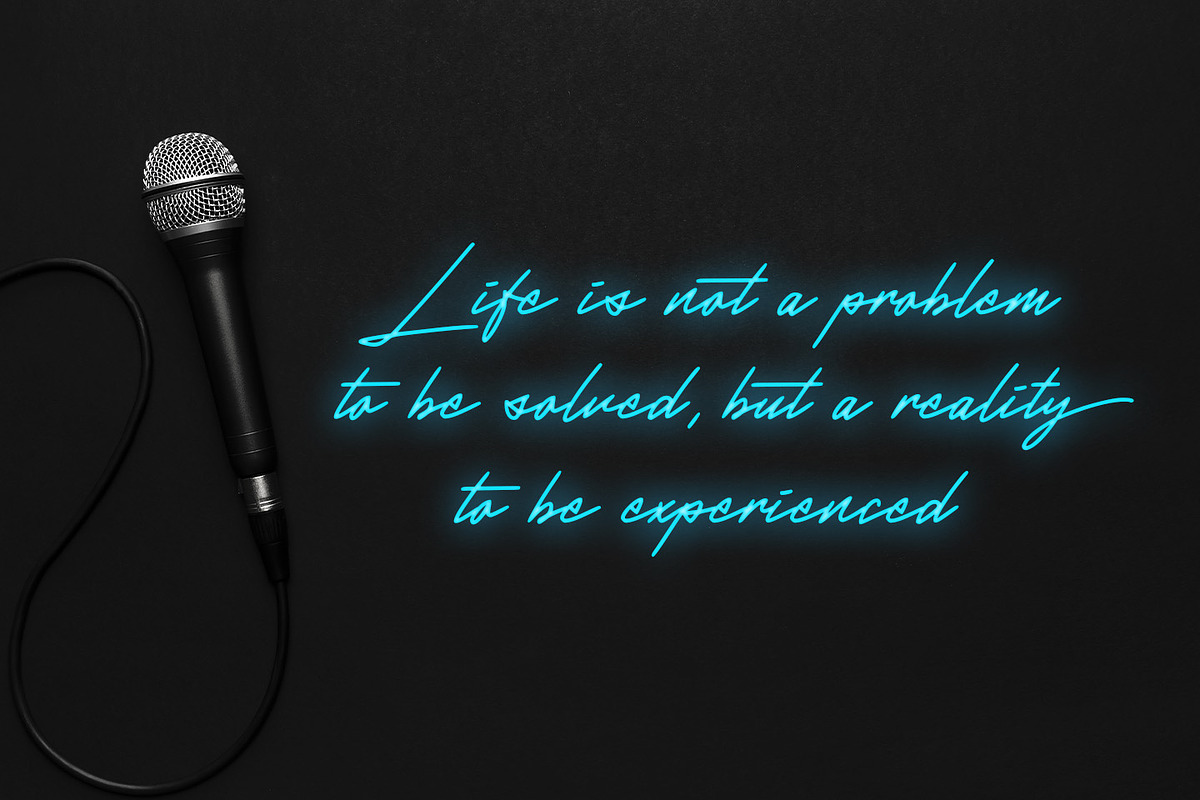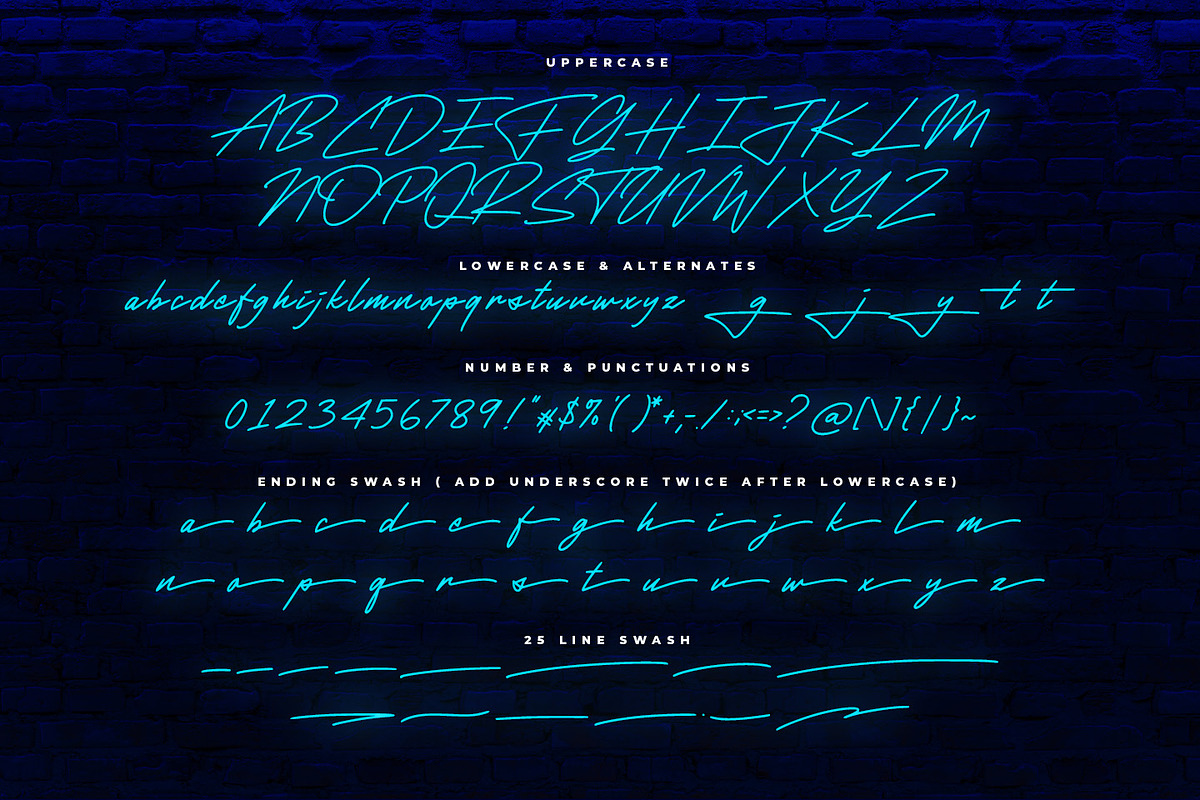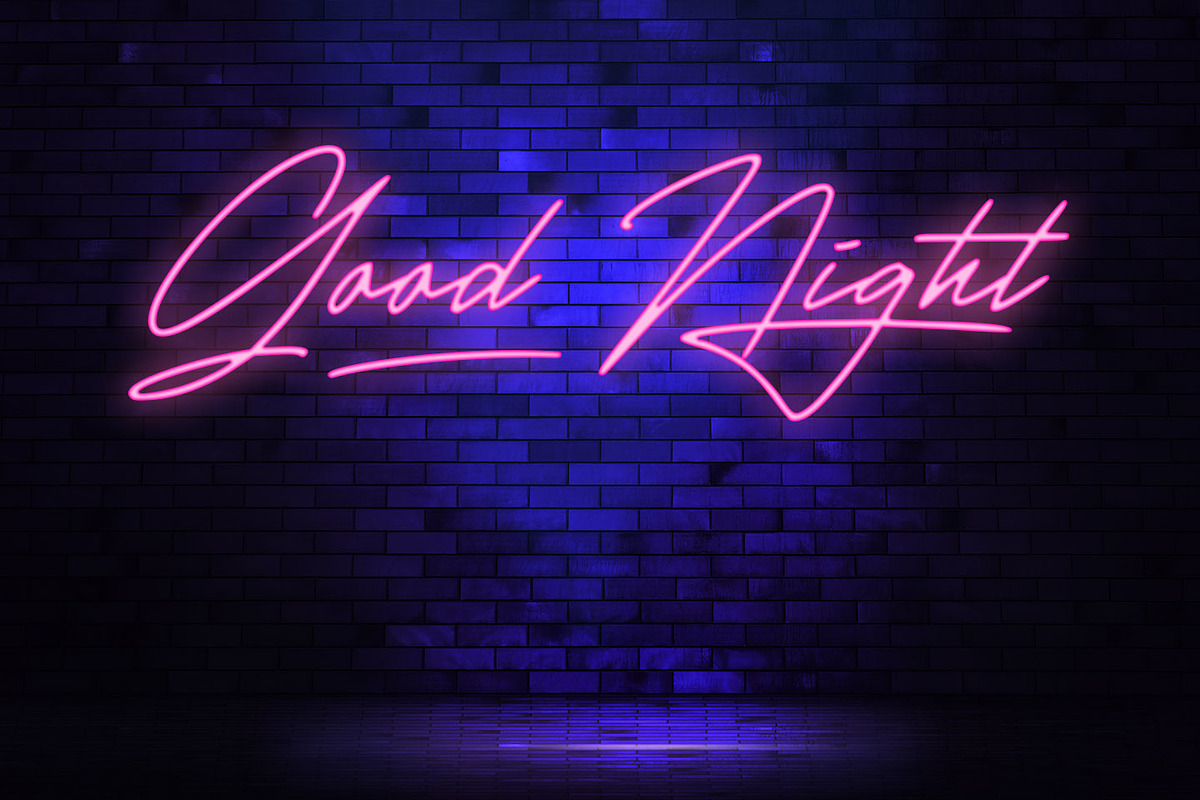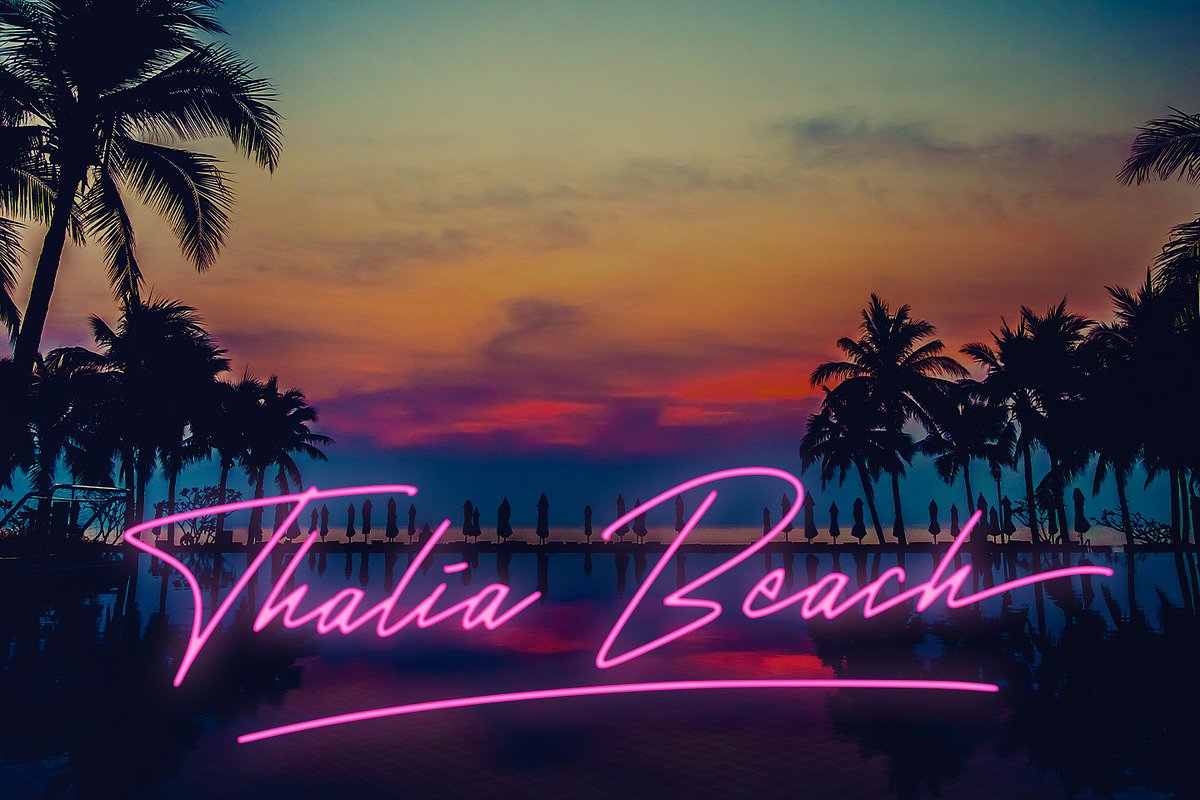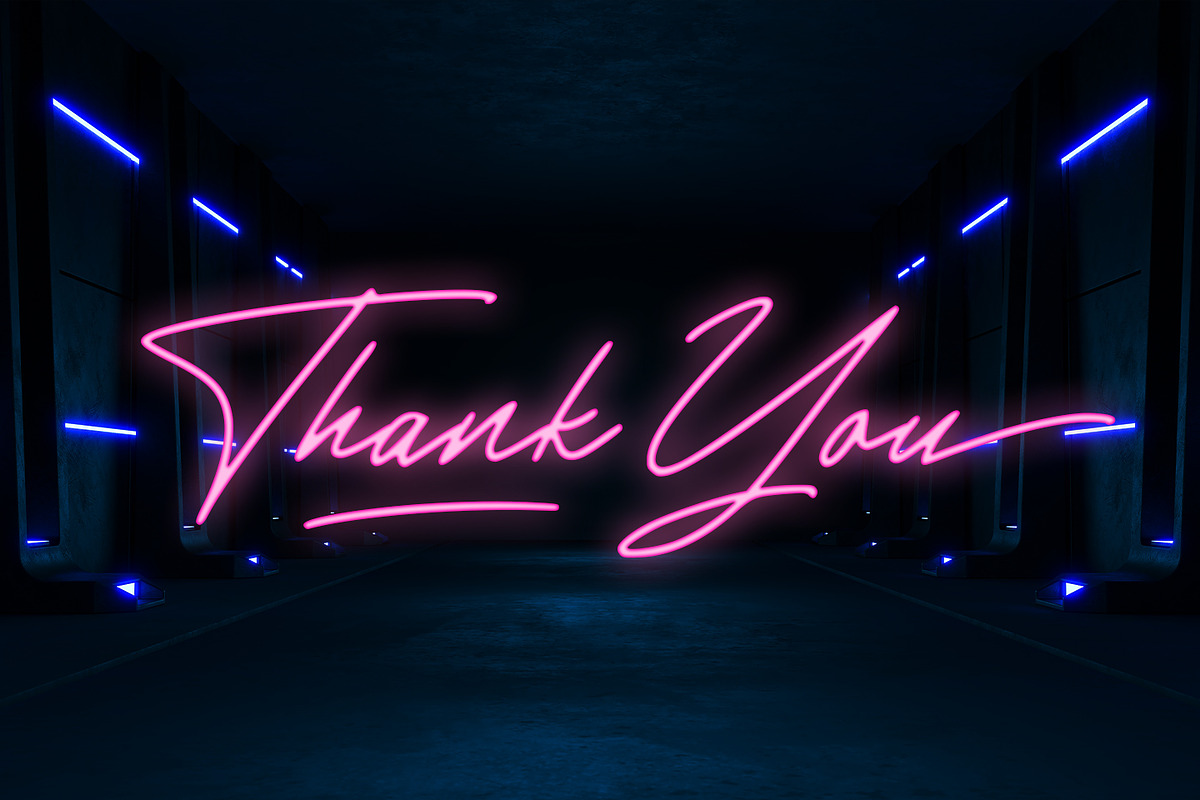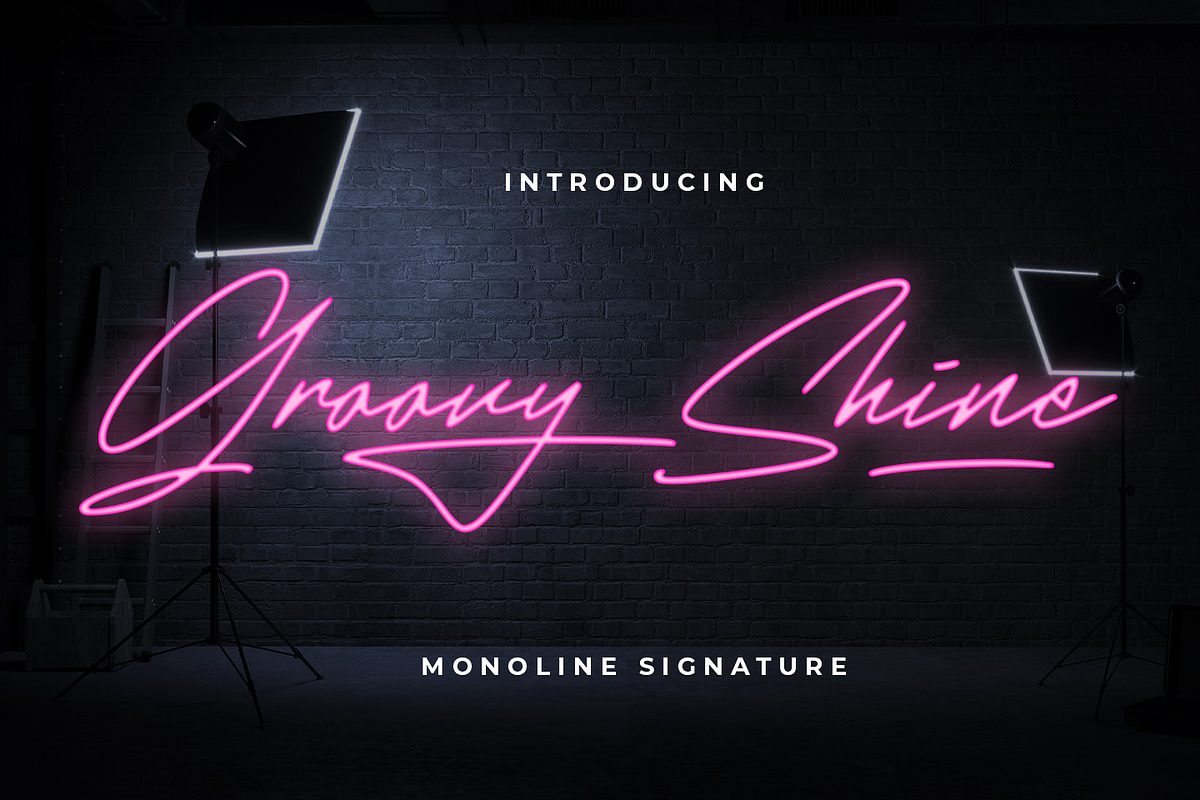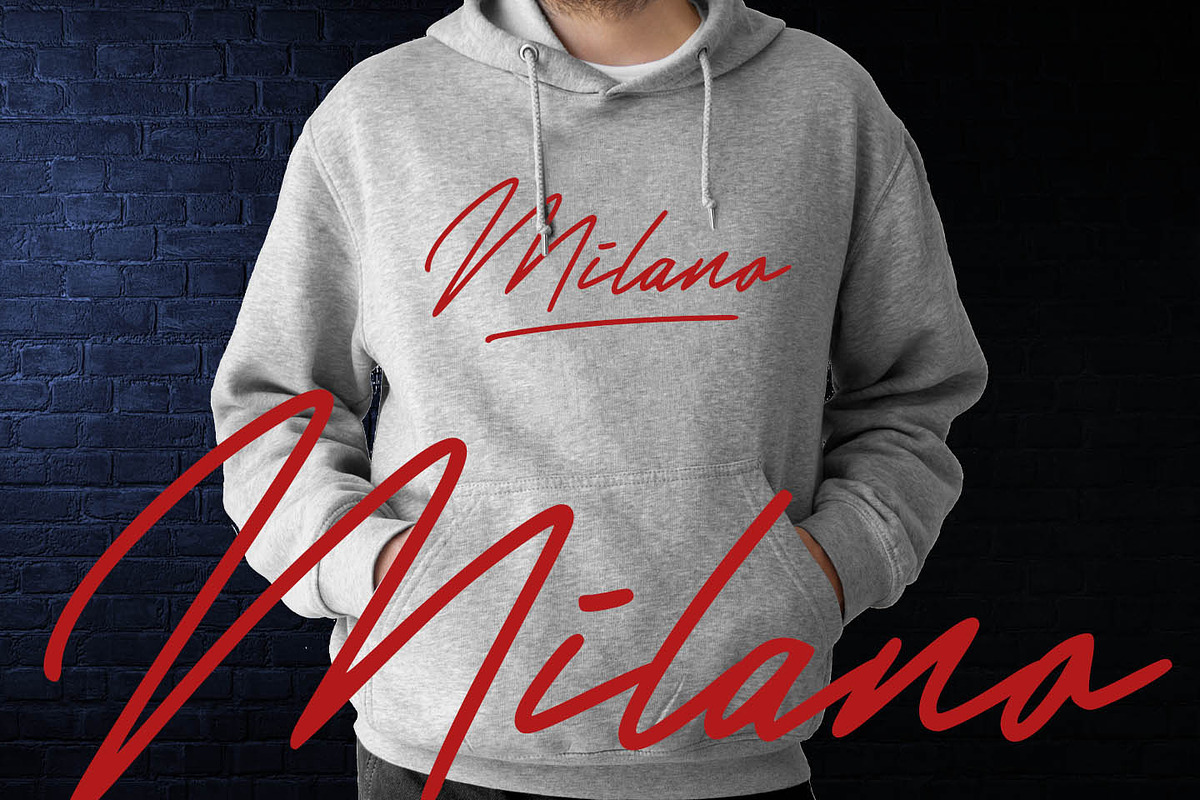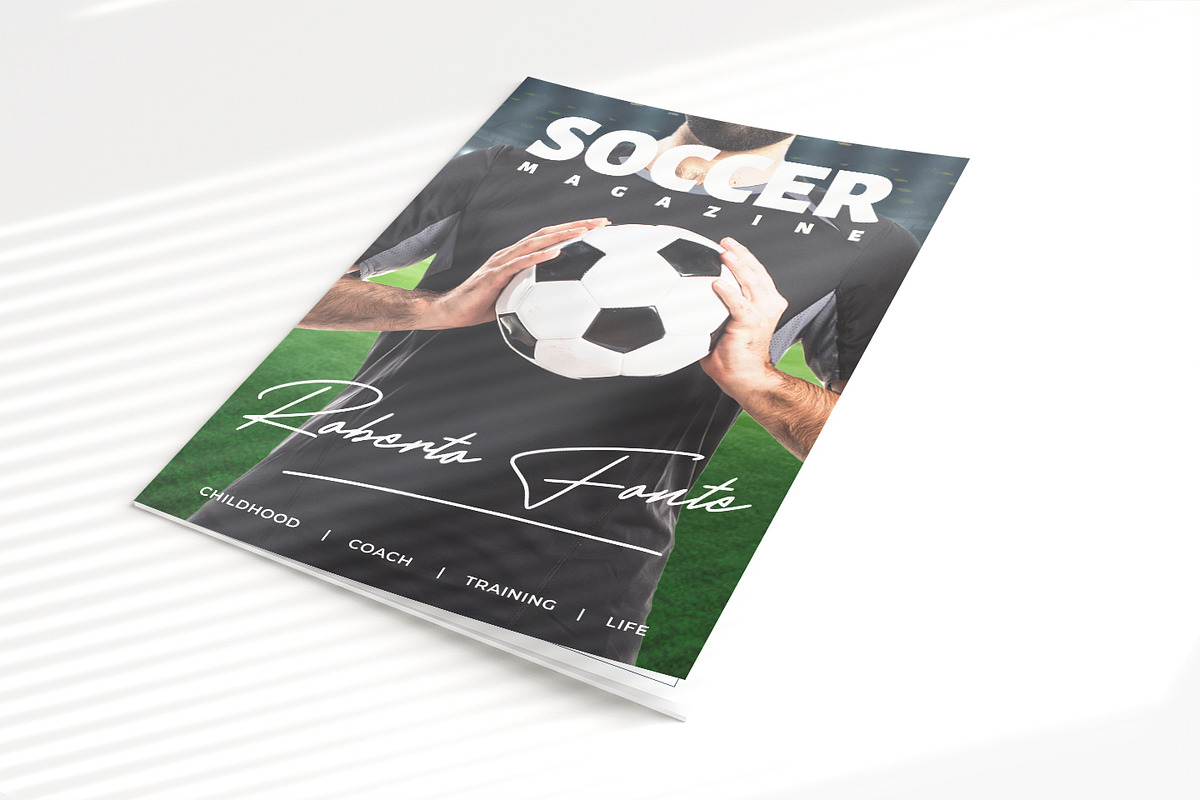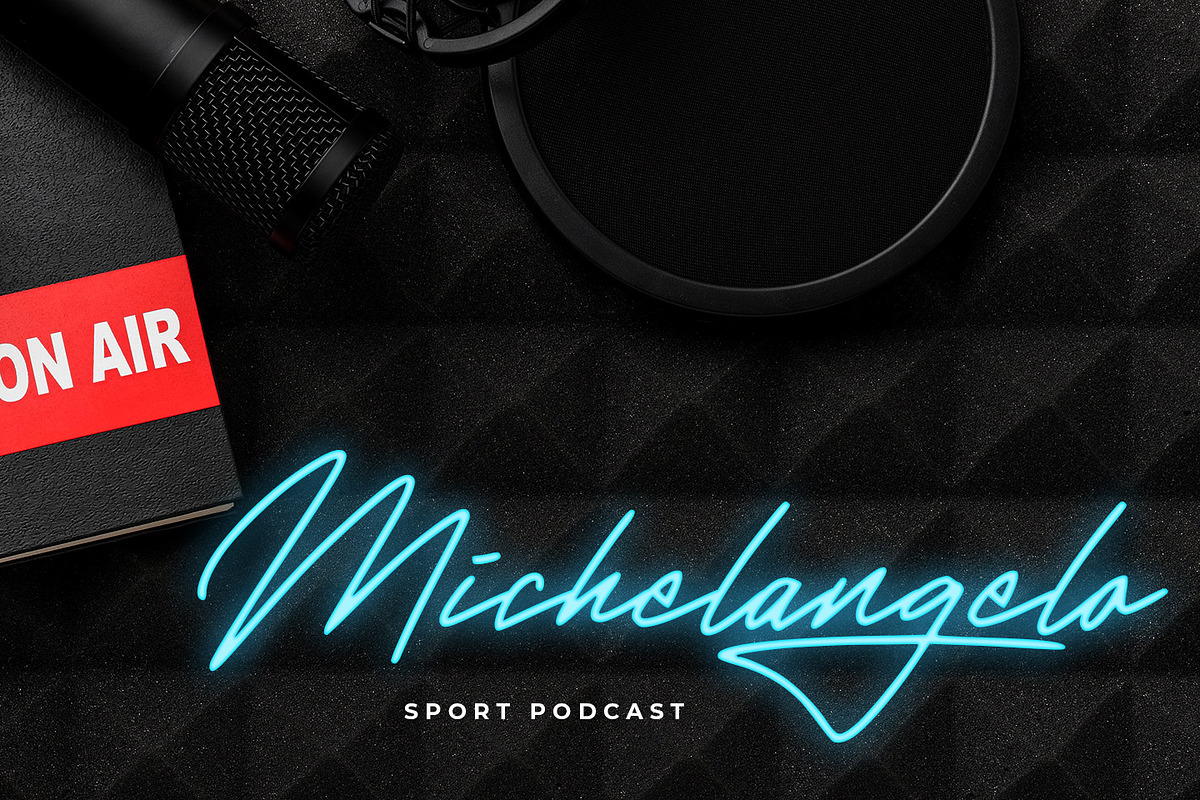
Groovy Shine
introducing
GROOVY SHINE -monoline signature font-
GROOVY SHINE is a natural signature font. It is great for signature, branding, quotes, logotype, t-shirt designs, tote bag designs, cards, banners, social media, and more. It is complete with swash that is very easy to access. We only need to add an underscore twice after the lowercase character.
- Number & punctuation